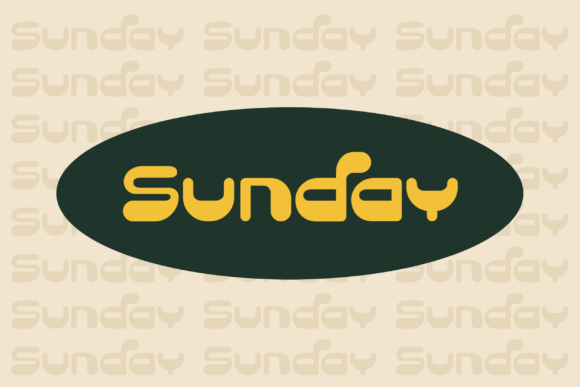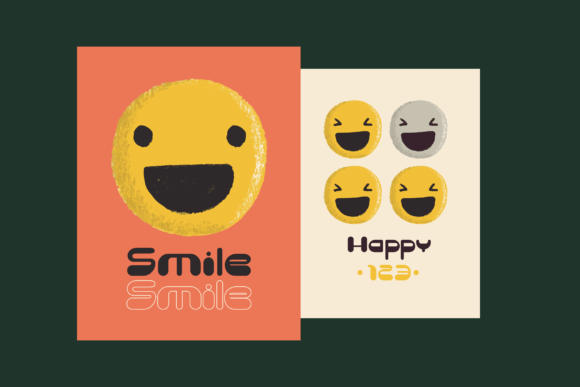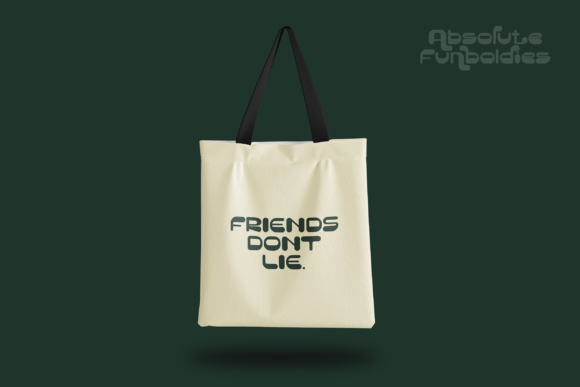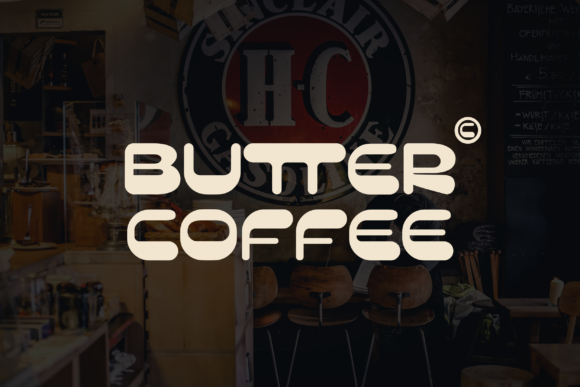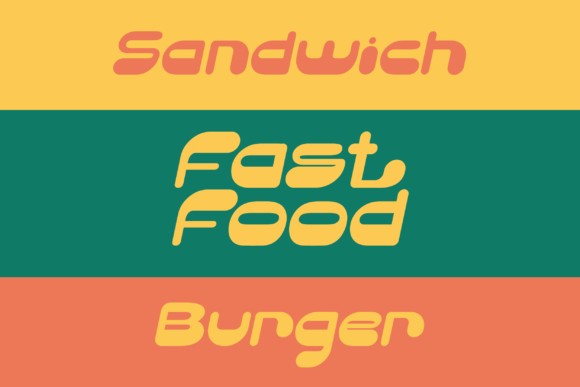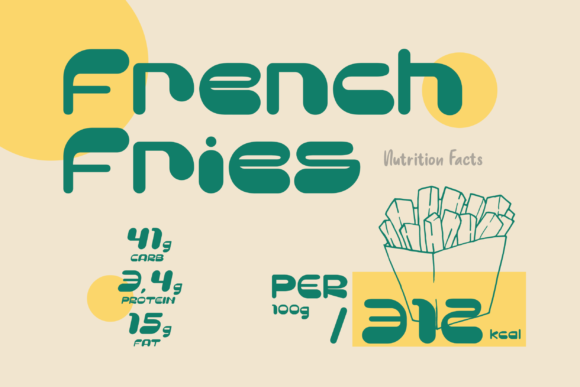
The Ultimate Retro Display Font: Absolute Funboldies
I’ll never forget the time I was working on a vintage-themed craft project, and I just couldn’t find the perfect font to match my design. My client was looking for something that screamed retro charm, but I was coming up blank. That’s when I stumbled upon Absolute Funboldies, an incredibly retro and neat display font that has since become a staple in my font library.
So, what makes Absolute Funboldies such an asset to any design project? Let’s dive into the good stuff! 😊
• ✨ Retro charm: This font has it in spades! From the curved lines to the bold lettering, Absolute Funboldies screams vintage fun.
• ✅ Versatility: Whether you’re working on a craft project, a branding campaign, or just a fun DIY sign, this font adapts seamlessly.
• 💡 Instant recognition: The unique lettering style makes it perfect for headlines, titles, or any text that needs to pop.
Of course, no font is perfect, and there are a few quirks to consider:
• 🤔 Legibility at small sizes: Like many display fonts, Absolute Funboldies can get a bit tricky to read when scaled down. Be sure to test it at various sizes to ensure it works for your project.
• ⚠️ Limited use for body text: This font is best used for headlines and titles. For longer blocks of text, you might want to pair it with a more readable font.
The Designer Inspiration Behind Absolute Funboldies
While the true story behind Absolute Funboldies might be shrouded in mystery, it’s easy to imagine a designer who grew up in the 80s and 90s, surrounded by retro posters, video games, and music cassettes. This font is like a nostalgic time capsule, bringing back memories of childhood wonder and playfulness.
What makes Absolute Funboldies unique? Its retro charm, bold lettering, and unique stylistic alternates make it a standout display font.
Is Absolute Funboldies suitable for body text? While it’s not ideal for long blocks of text, Absolute Funboldies can be used for short paragraphs or captions.
Absolute Funboldies is an incredibly retro and neat display font that can elevate any design project. Its unique charm and versatility make it a valuable addition to any font library. So go ahead, get creative, and bring a bit of retro fun to your next project! 🎉